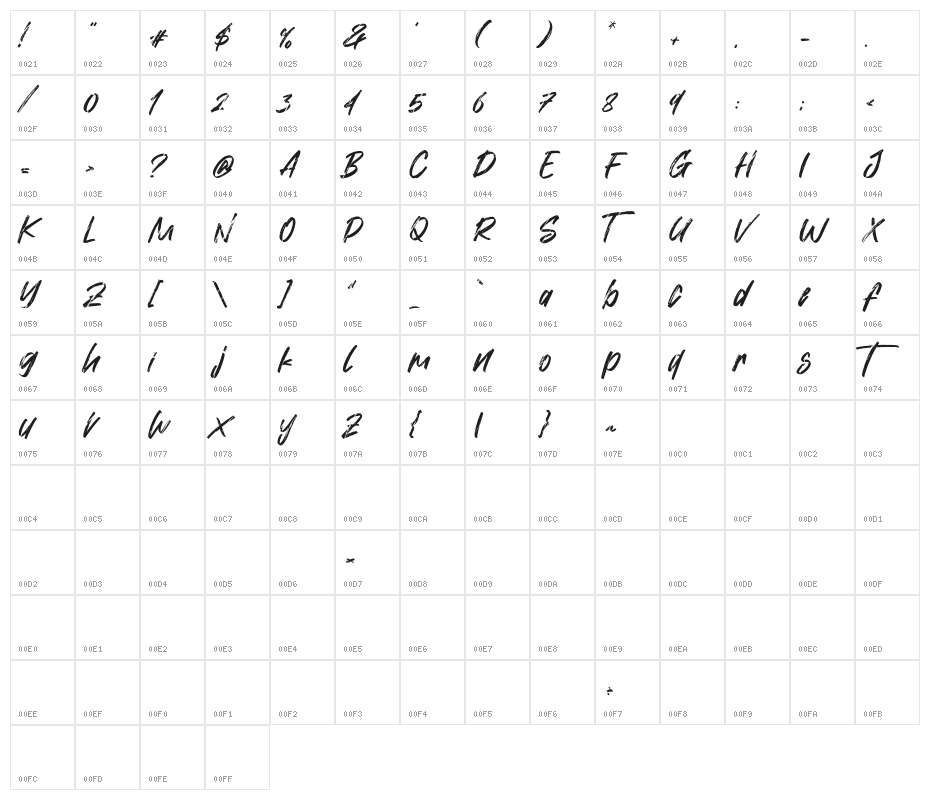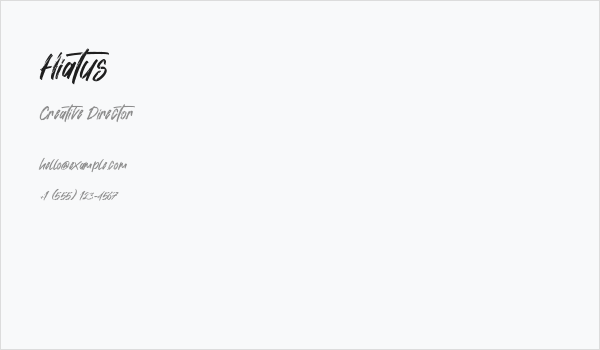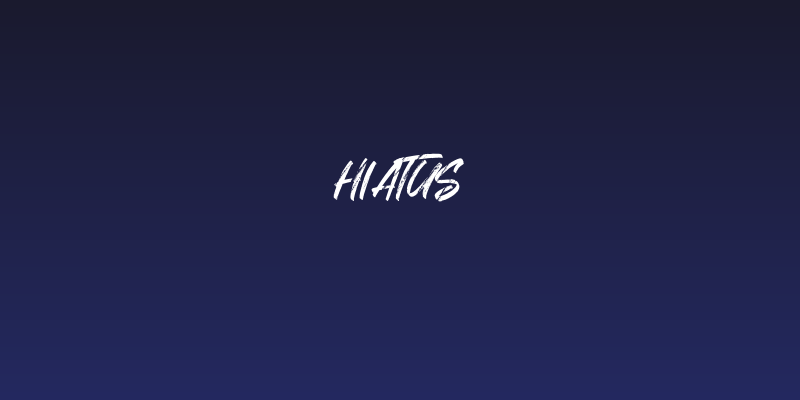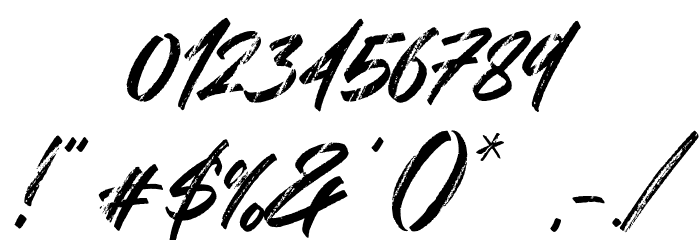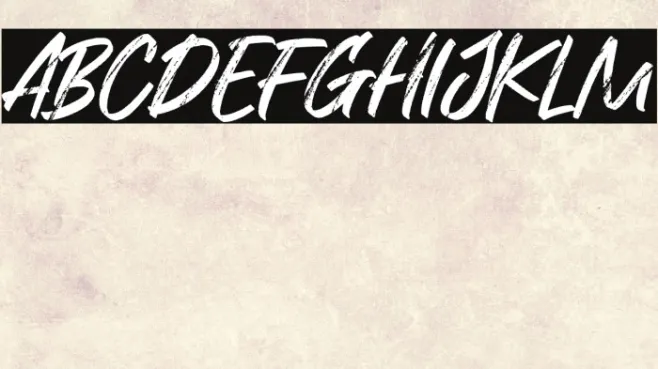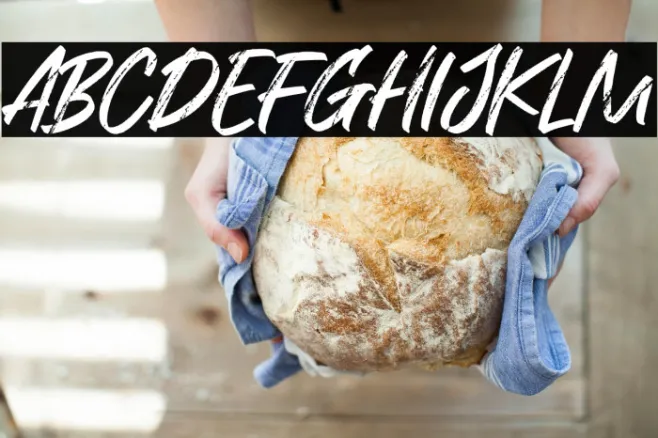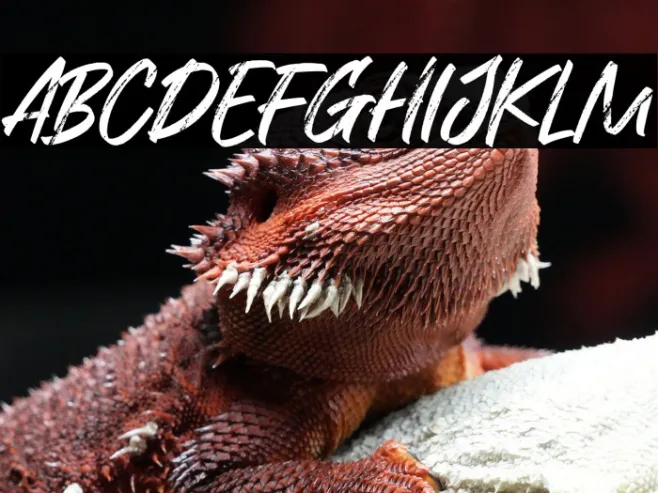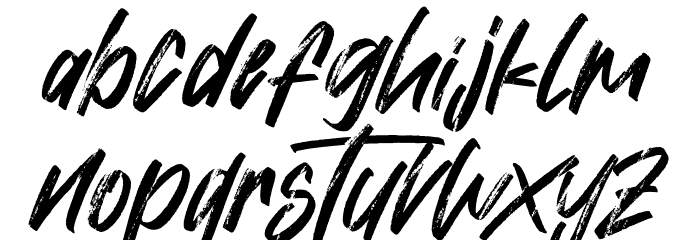
Hiatus Font
Hiatus Description
This font features a bold, energetic script style with a hand-painted appearance. The strokes are dynamic and textured, giving a sense of movement and spontaneity. The characters are slightly slanted, enhancing the casual and informal feel. The uppercase and lowercase letters are well-balanced, with a consistent flow that maintains readability despite the artistic flair. Numbers and special characters follow the same expressive style, making the font versatile for various creative applications.
| Proposed Projects | Ideal for branding, posters, album covers, and any project requiring a bold, artistic touch. |